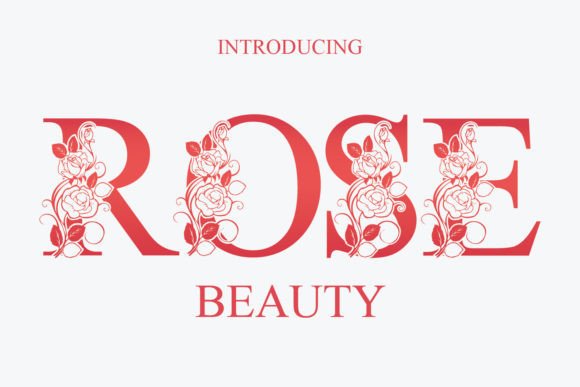
Introducing Rose Beauty Monogram Font, the perfect addition to your collection of fonts for food packaging! Created by the talented susecreative, this delicate and highly detailed decorative font will capture your heart with its authentic feel and stunning design.
Imagine the possibilities when you incorporate Rose Beauty Monogram into your projects. Whether you're designing invitations for a wedding, creating beautiful stationary art, or even sprucing up your social media posts, this font is guaranteed to make a lasting impression.
With its intricate details and elegant curves, Rose Beauty Monogram adds a touch of sophistication to any creative endeavor. Its timeless charm will effortlessly elevate your designs, making them truly memorable and captivating.
But what makes Rose Beauty Monogram Font truly special is its ability to make your creations stand out from the crowd. This font has the power to transform ordinary ideas into extraordinary ones. Just imagine the reactions when your audience sees the stunning beauty and uniqueness that this font brings to your work.
Not only is Rose Beauty Monogram Font visually stunning, but it also evokes a range of emotions. It captures the essence of elegance, romance, and beauty, allowing you to create a truly captivating experience for your audience.
So why settle for ordinary when you can have extraordinary? Rose Beauty Monogram Font is the key to unlocking your creative potential and taking your designs to new heights. Its versatility and charm make it a must-have for any designer or creative enthusiast.